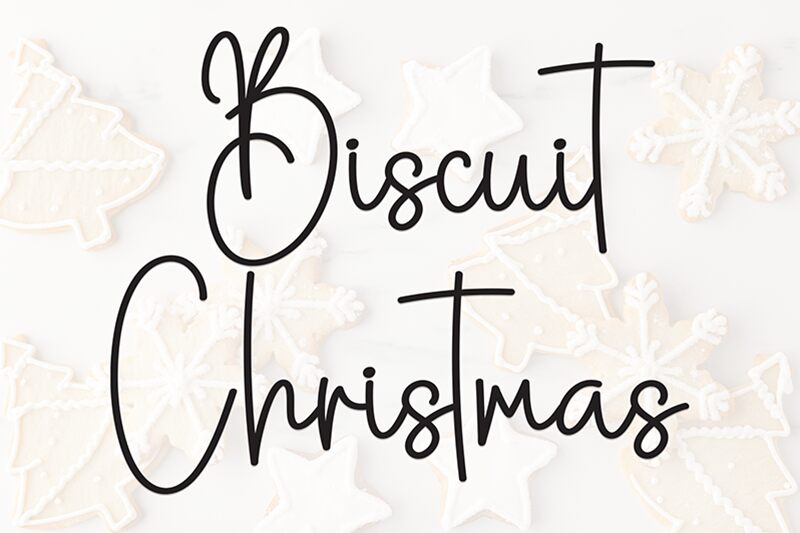
Biscuit Christmas
Biscuit Christmas font is a handwritten creation by Scratchones that embodies a light, whimsical flair. It balances expressiveness with approachability for casual designs requiring a friendly visual tone. As its title suggests, it’s inspired by holiday aesthetics and brings this cheerfulness in each character.
In tune with its casual style, the font finds use for personal invitations, greetings cards, and scrap-booking projects. Companies will also find it useful for store signage or branding work within hospitality or retail industries. Use Biscuit Christmas in logos, business cards, websites, social media graphics and more!